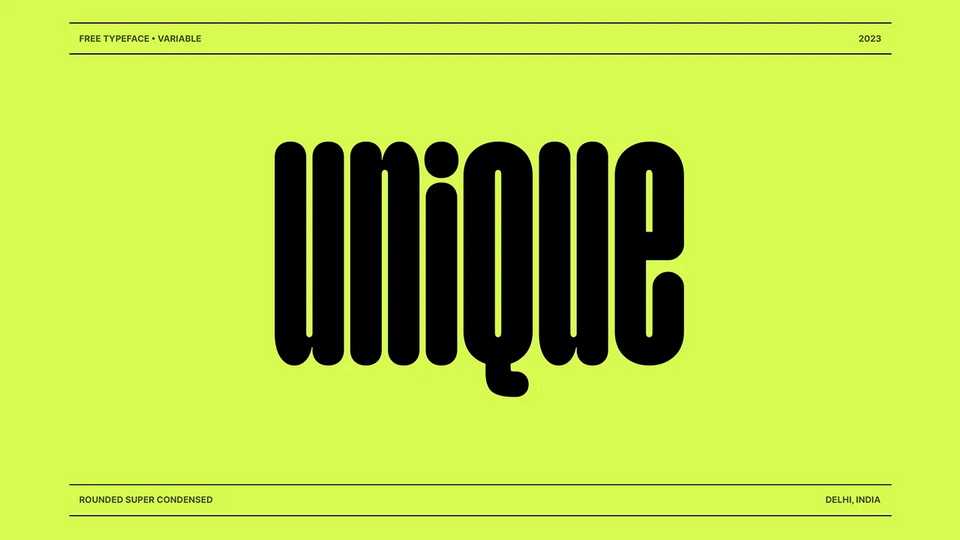
Unique Font Family › Fontesk
Download Unique font, a charming rounded typeface. Unique has its own delightful personality and will be the right choice for – bold titles, logos, headlines, posters, etc.
Designer: Rajesh Rajput